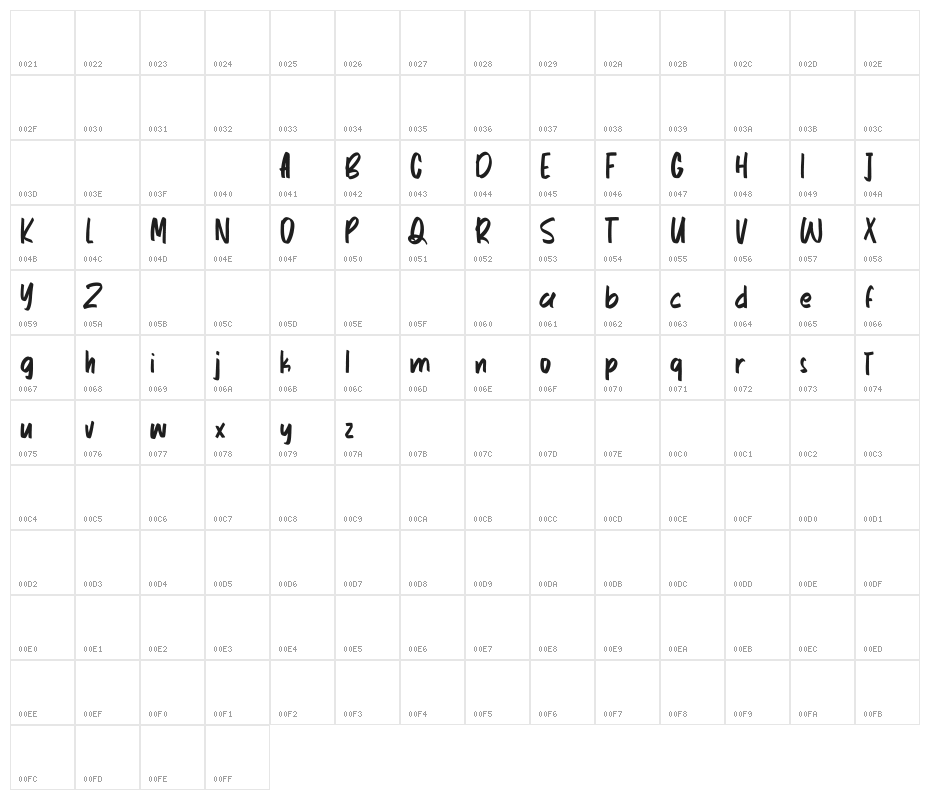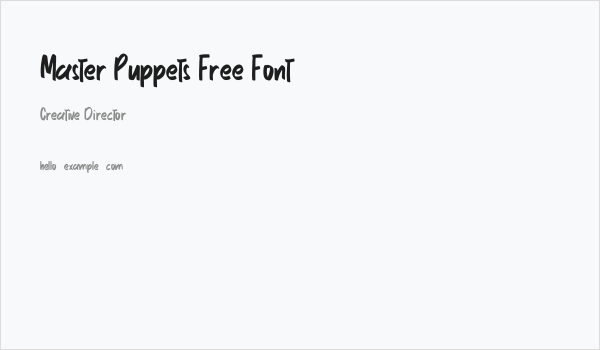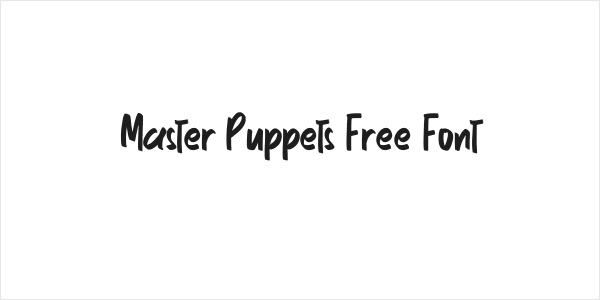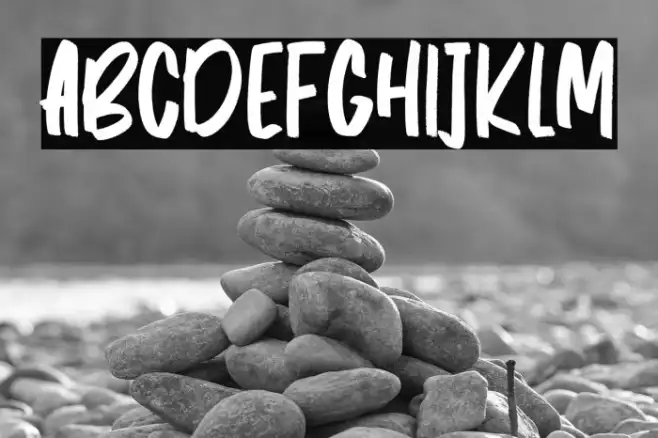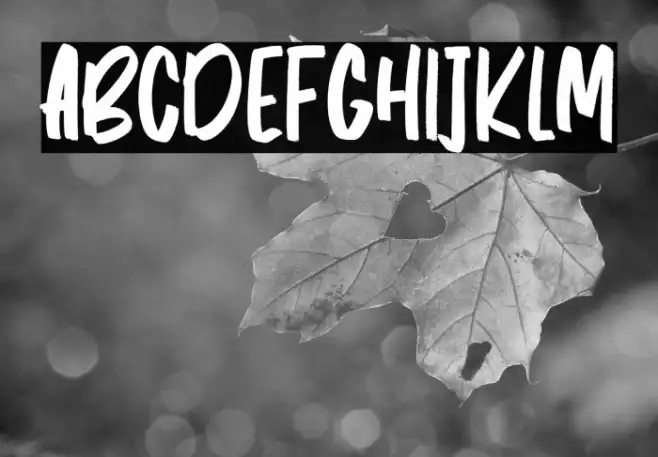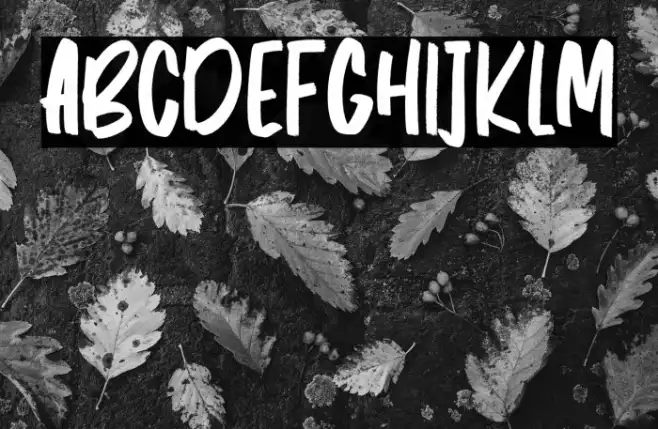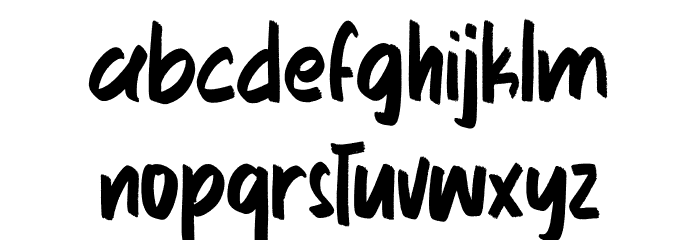
Master Puppets Free Font Font
Master Puppets Free Font Description
This font features a bold and energetic handwritten style, characterized by its thick strokes and playful curves. The uppercase letters are tall and commanding, while the lowercase letters maintain a consistent flow, adding a touch of casual elegance. The font's dynamic appearance is enhanced by its slightly irregular baseline, giving it a lively and spontaneous feel. The characters are well-spaced, ensuring readability while maintaining a cohesive look. This font is perfect for projects that require a personal and approachable touch, such as invitations, posters, and branding materials.
| Proposed Projects | Ideal for invitations, posters, branding, and any project needing a personal touch. |